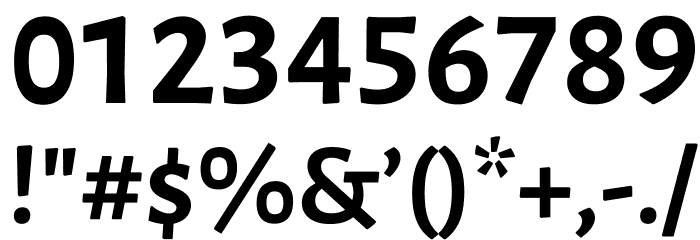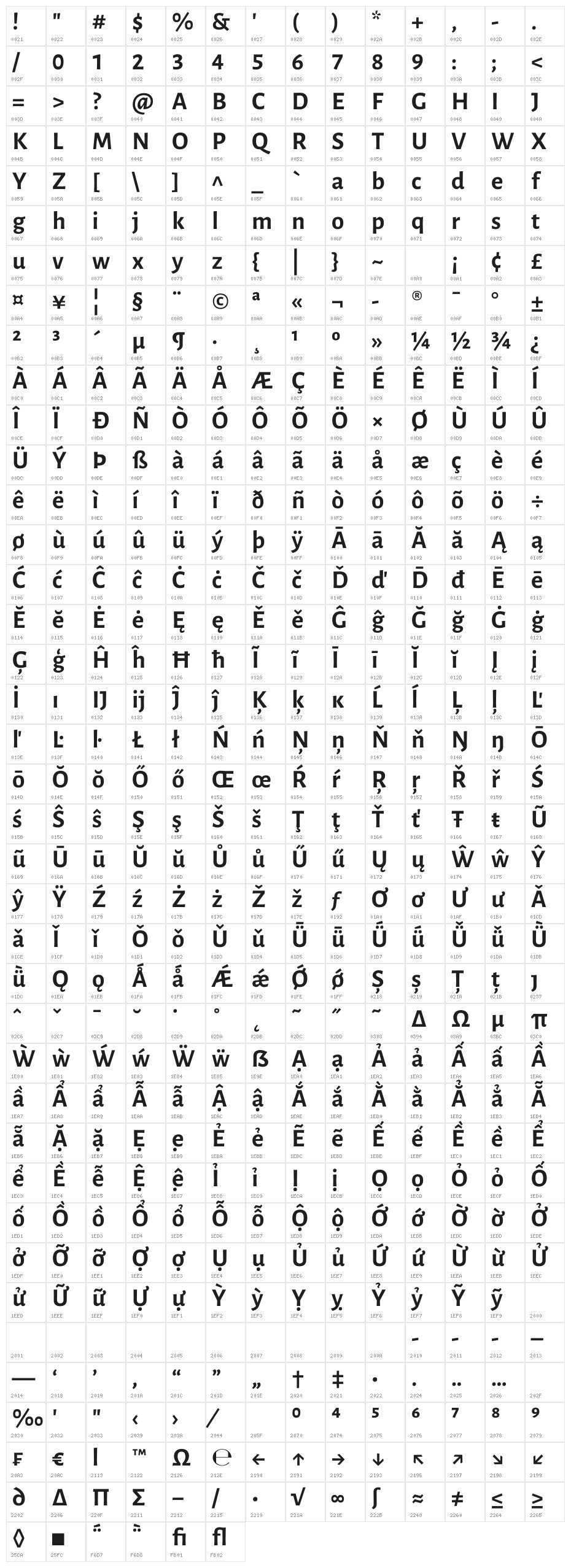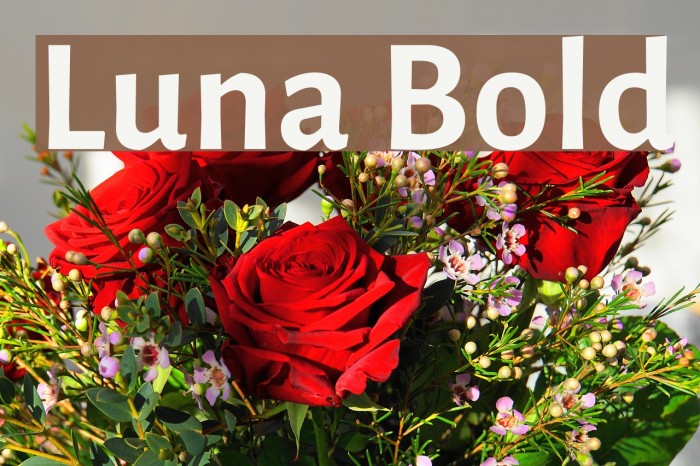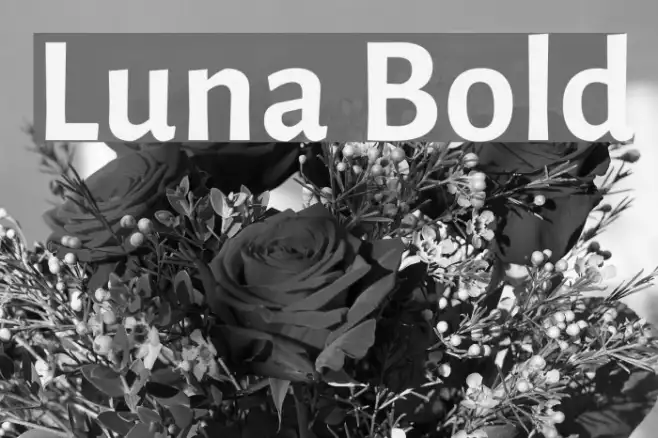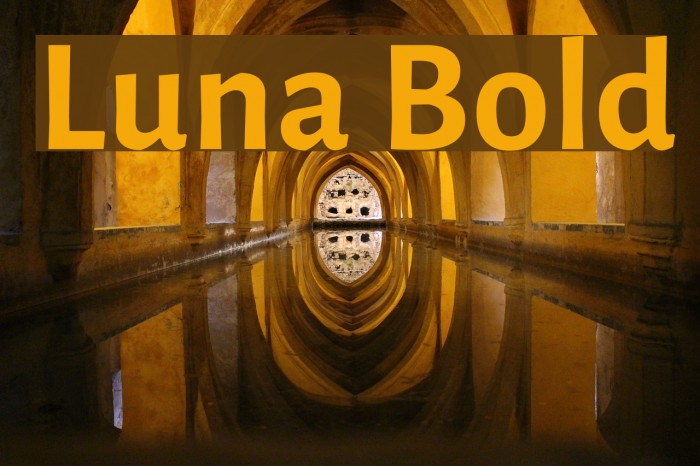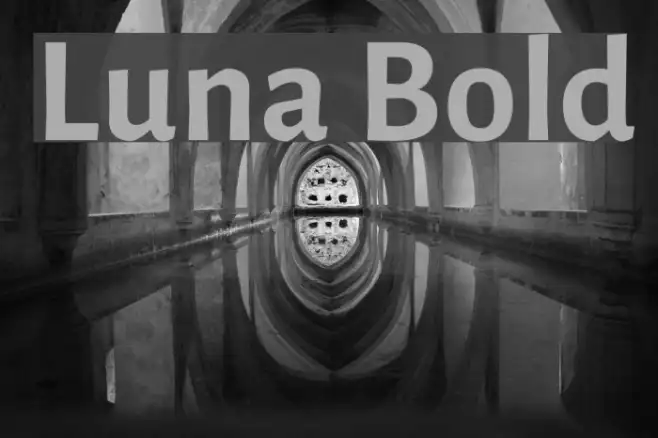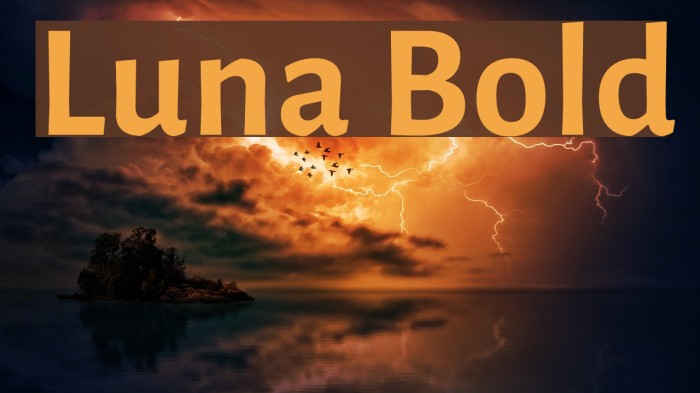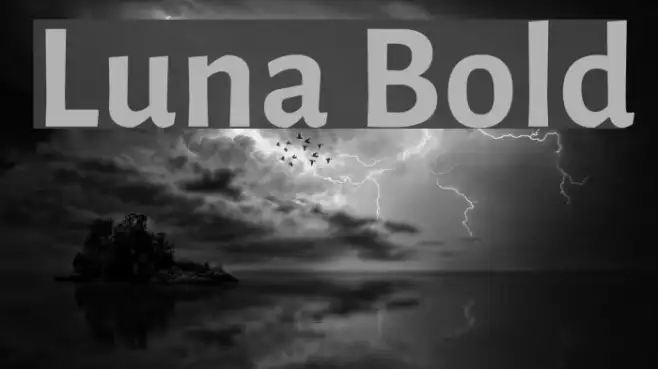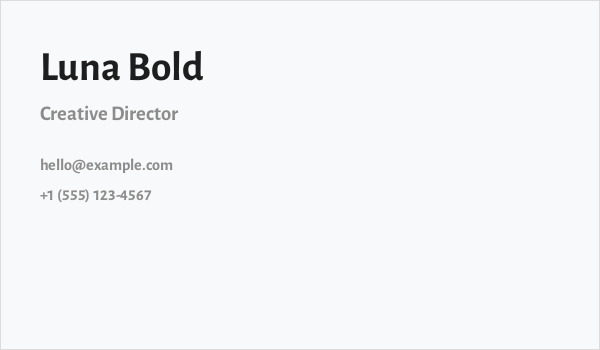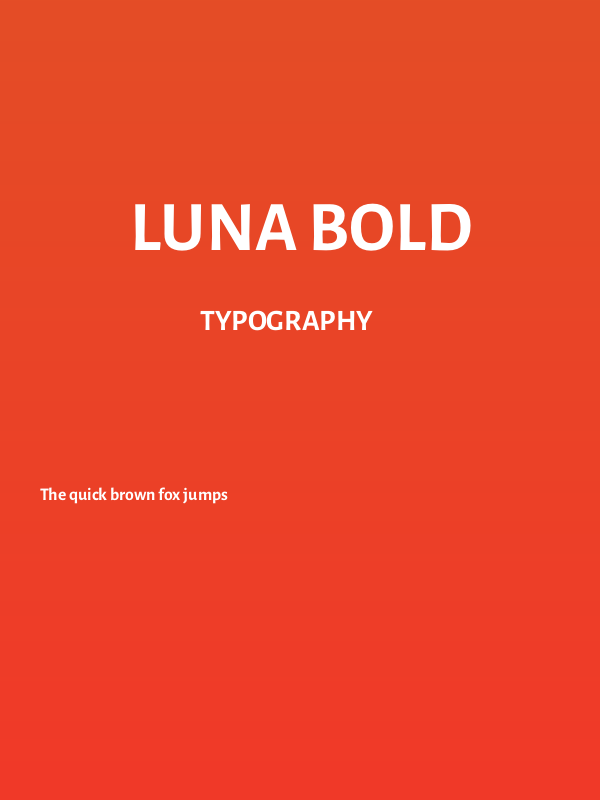
Luna Bold Font
Luna Bold Description
This font exhibits a bold and robust style with clean, sharp edges and a modern aesthetic. The uppercase letters are uniform in height, providing a strong and authoritative presence. The lowercase letters maintain a consistent weight, ensuring readability and balance. Numbers are clear and distinct, making them suitable for various applications. The special characters are well-defined, adding versatility to the font's usage. Overall, the font's design is contemporary, making it ideal for modern digital and print media.
| Proposed Projects | Ideal for branding, headlines, posters, and digital media where a strong, modern look is desired. |